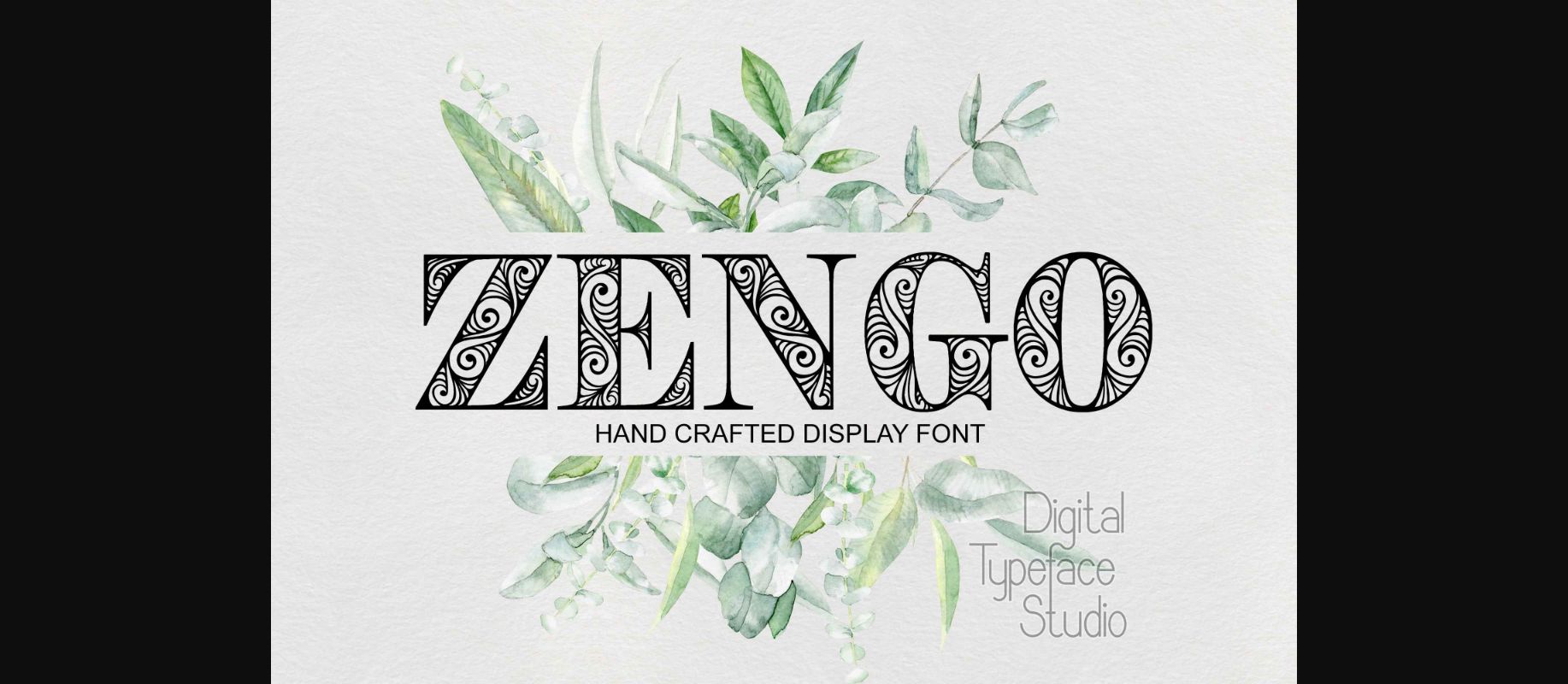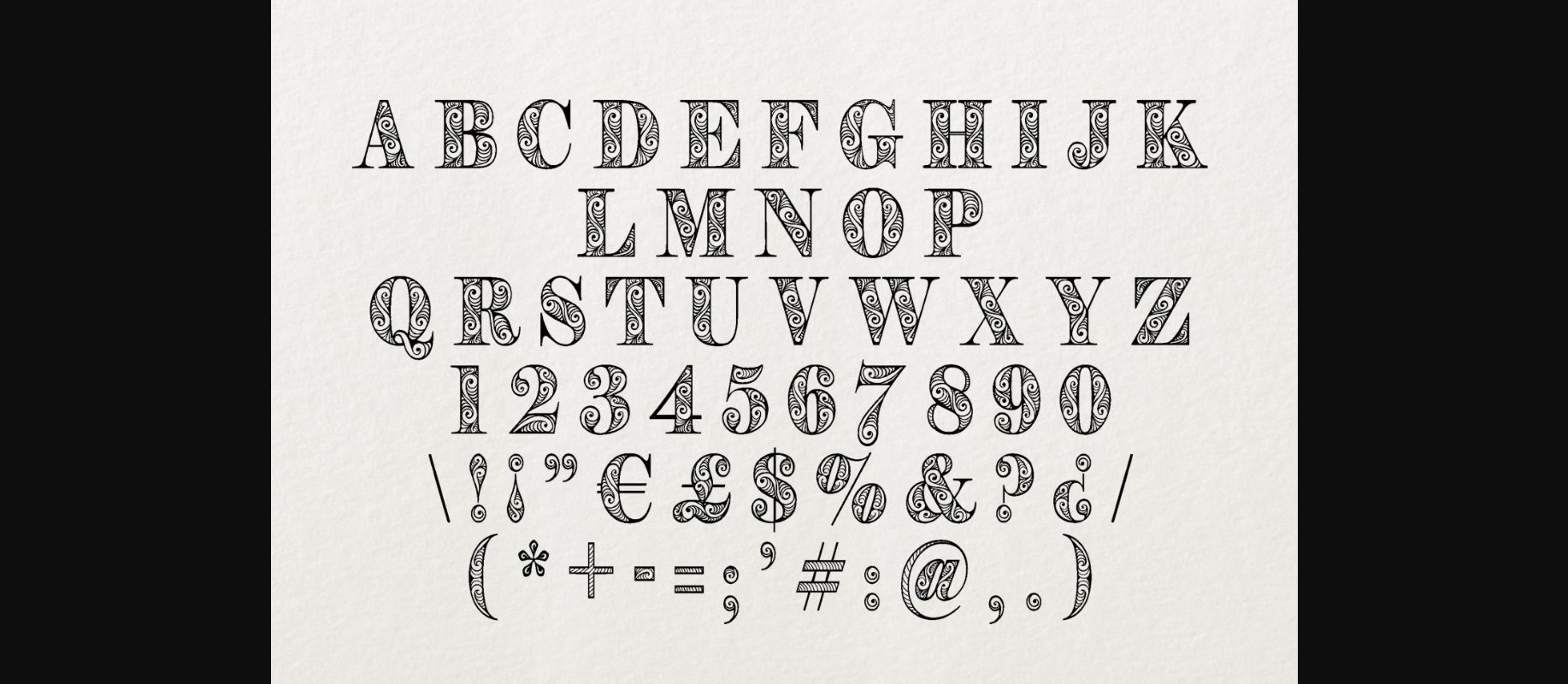
Zengo Font
About Zengo Font
Zengo is a beautifully crafted decorative font, suitable for designs that need to get noticed. With elegant designs within a serif typeface, this is the perfect font for adding a touch of class to your projects.